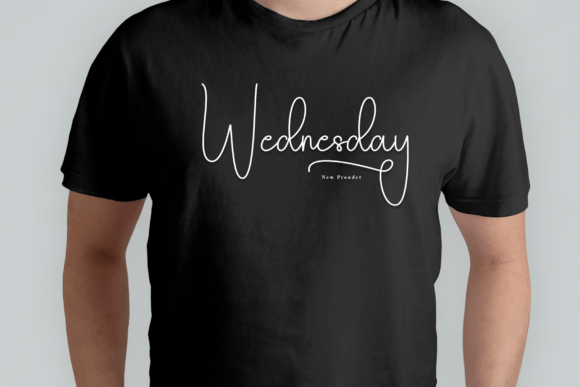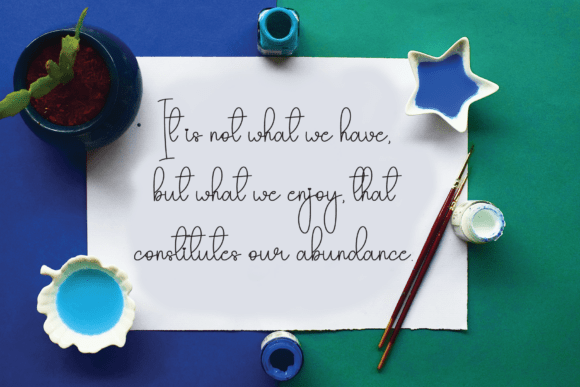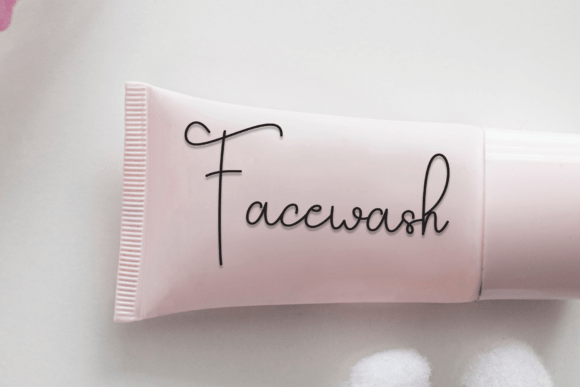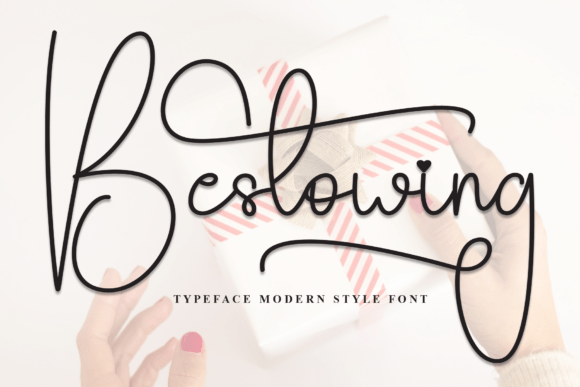
Introduction to Bestowing Font
Bestowing is a stylish handwritten script font that blends modern elegance with a playful touch.
Its fluid strokes and charming curves bring a personal feel to any design Ideal for logos, packaging, and invitations, this typeface adds warmth, sophistication, and creativity to every project.
Bestowing Font offers exceptional quality and versatility, making it a valuable addition to your design toolkit. Whether you’re creating for personal projects or commercial use, Bestowing Font delivers professional results.